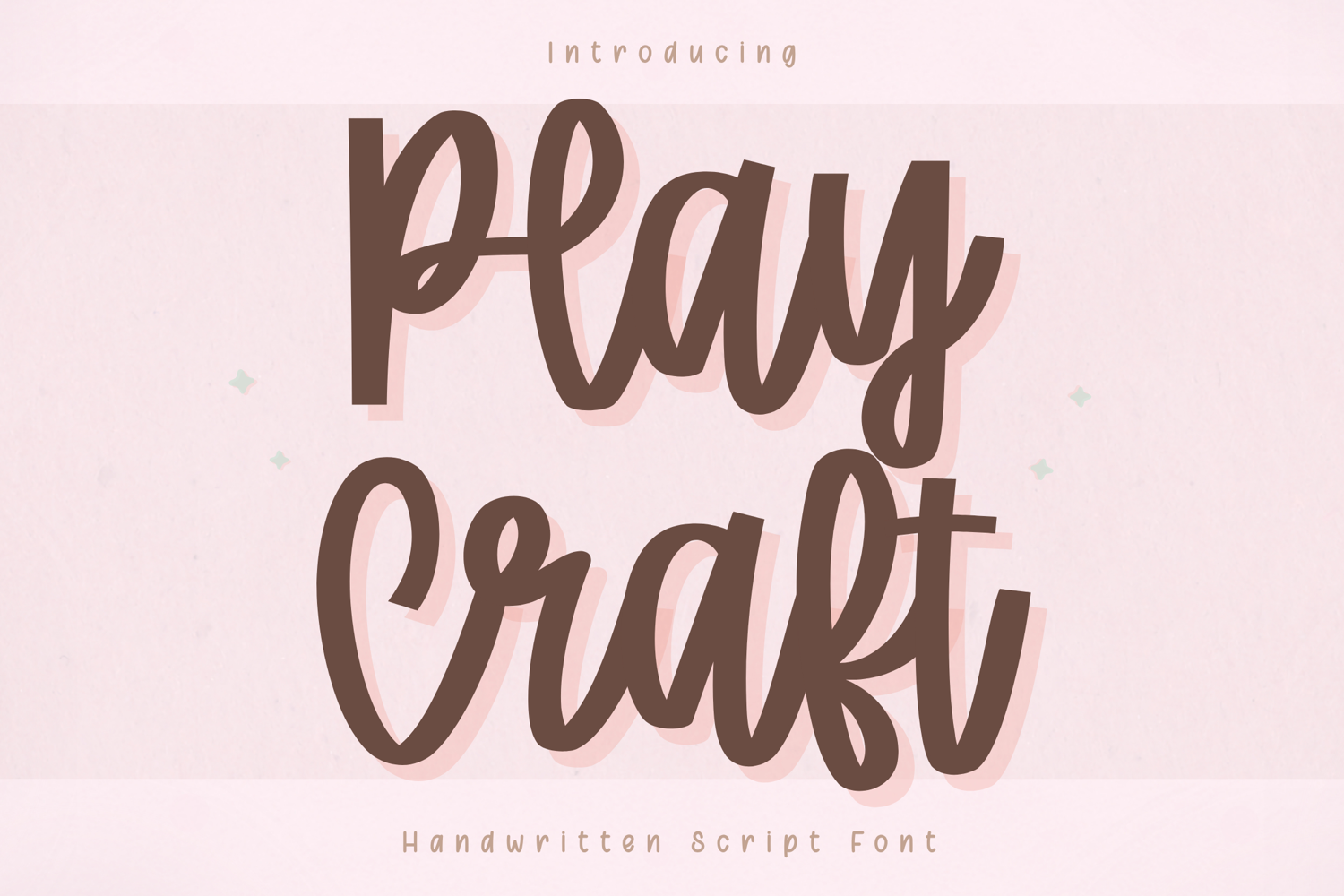
Play Craft - Handwritten Script Font
Play Craft – Handwritten Script Font
Play Craft is a smooth and playful handwritten script font designed to bring a fun and creative touch to your designs. With its flowing letterforms and natural handwritten style, this font creates a perfect balance between personality and readability.
Crafted with versatility in mind, Play Craft works beautifully across a wide range of applications—from Cricut projects and merchandise design to digital planners, branding, and social media graphics. Its clean curves and consistent strokes ensure smooth performance for both writing and cutting, making it ideal for everyday creative use.
Play Craft is designed with smooth, flowing strokes and balanced spacing, making it easy to use while maintaining a natural handwritten look.